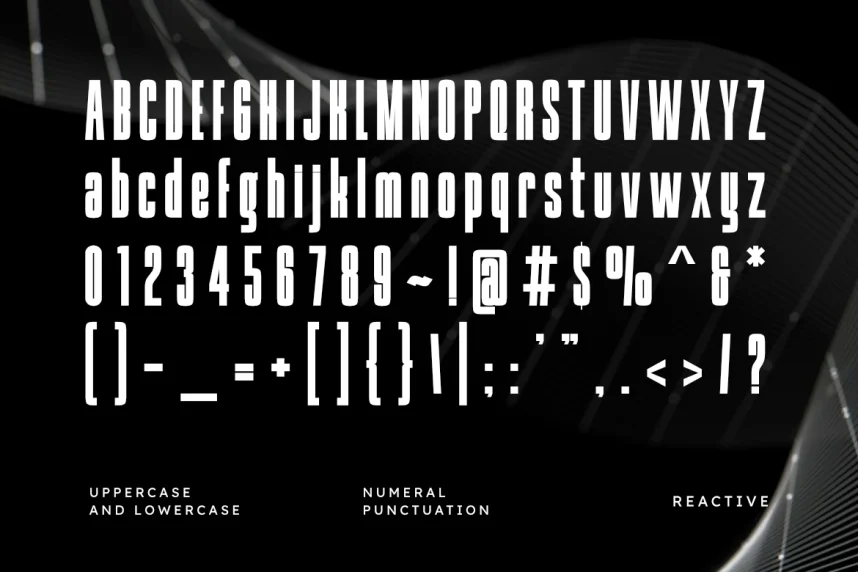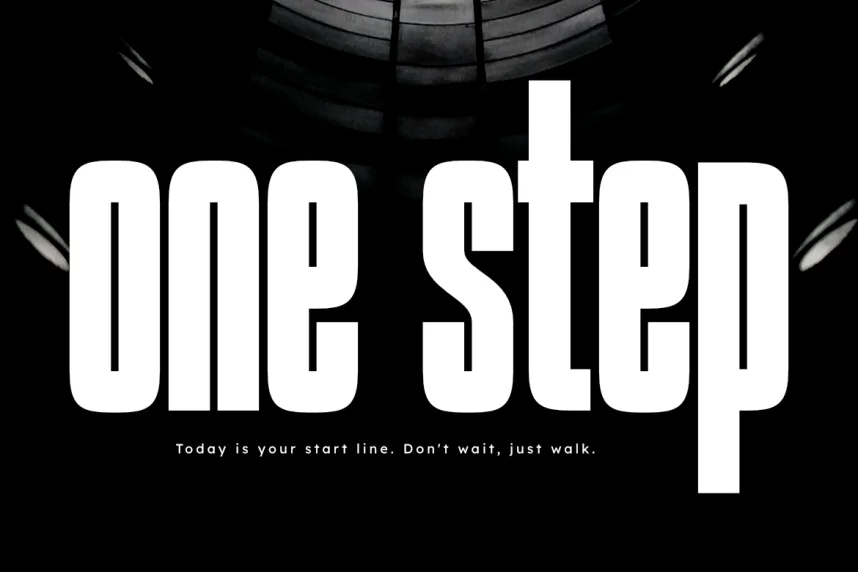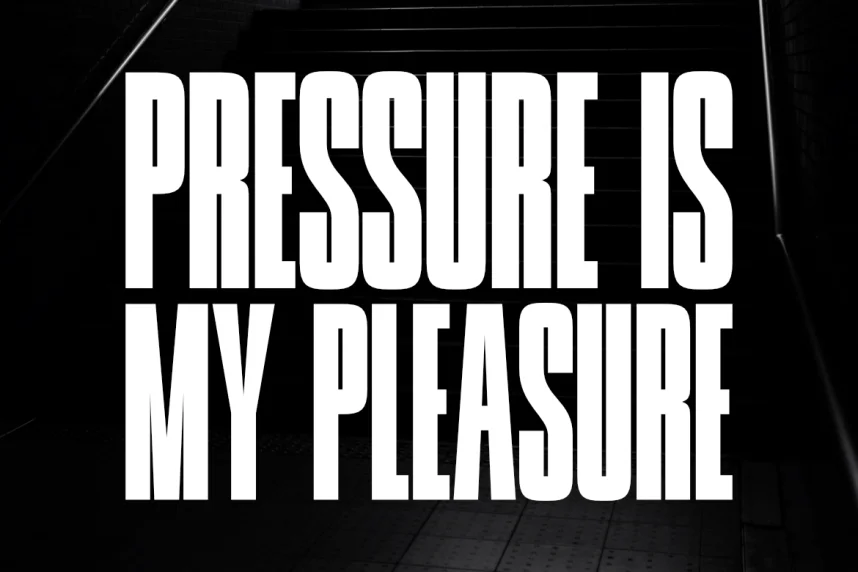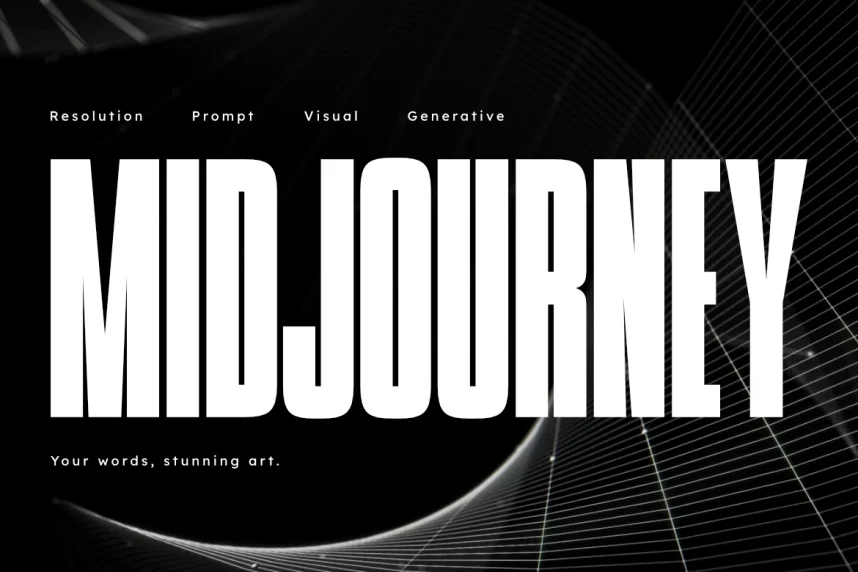
Reactive Font is a display typeface designed to support strong visual hierarchy in branding, web design, and promotional layouts. It helps designers address readability issues in headlines and logos where bold structure and clear letter separation are required across screens and printed materials.
Reactive Font features thick strokes, sharp edges, and controlled spacing that improves legibility at large sizes. The letterforms follow a modern display structure with minimal curves and consistent weight distribution. This makes the font suitable for attention-focused text such as banners, titles, packaging labels, and UI headings.